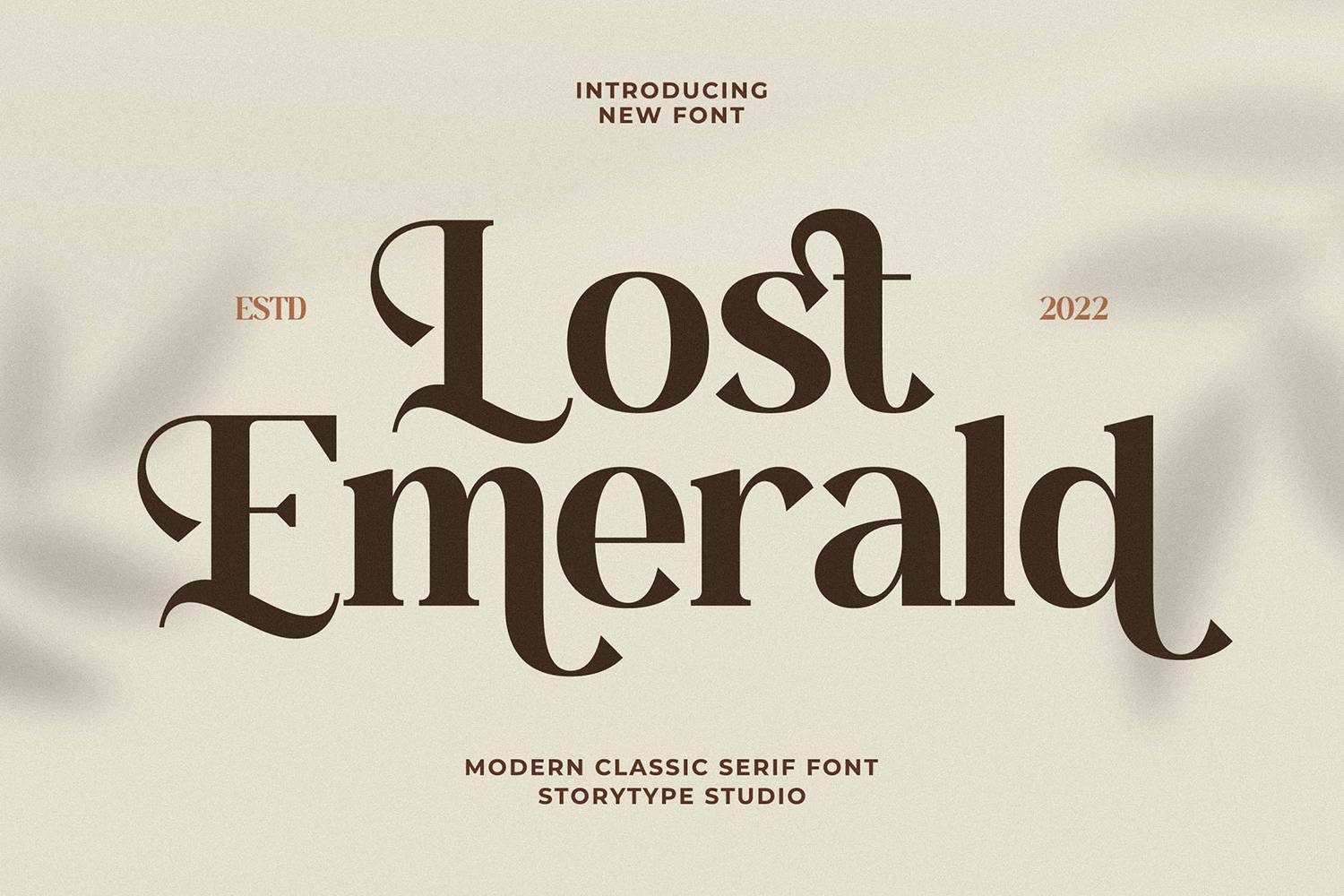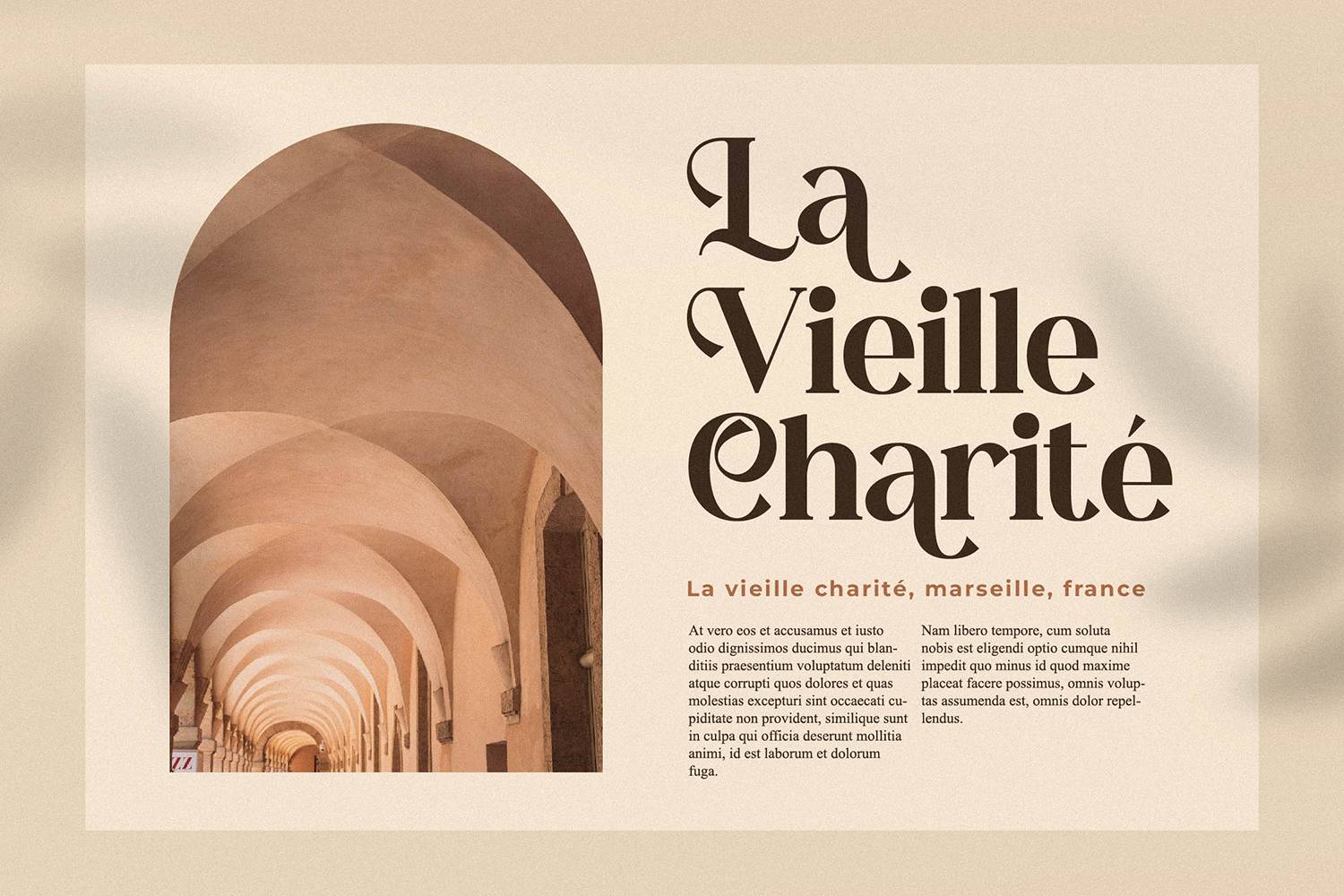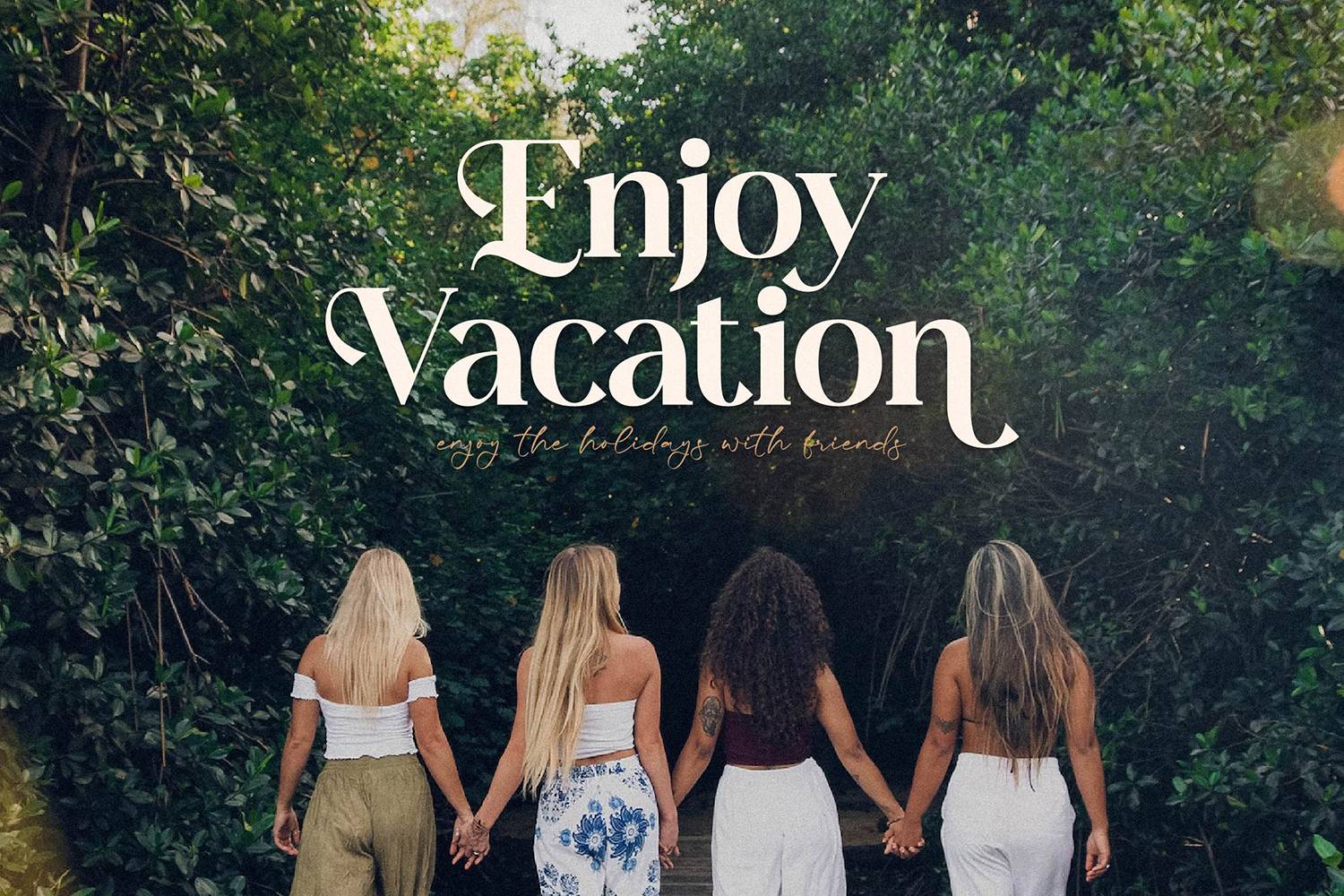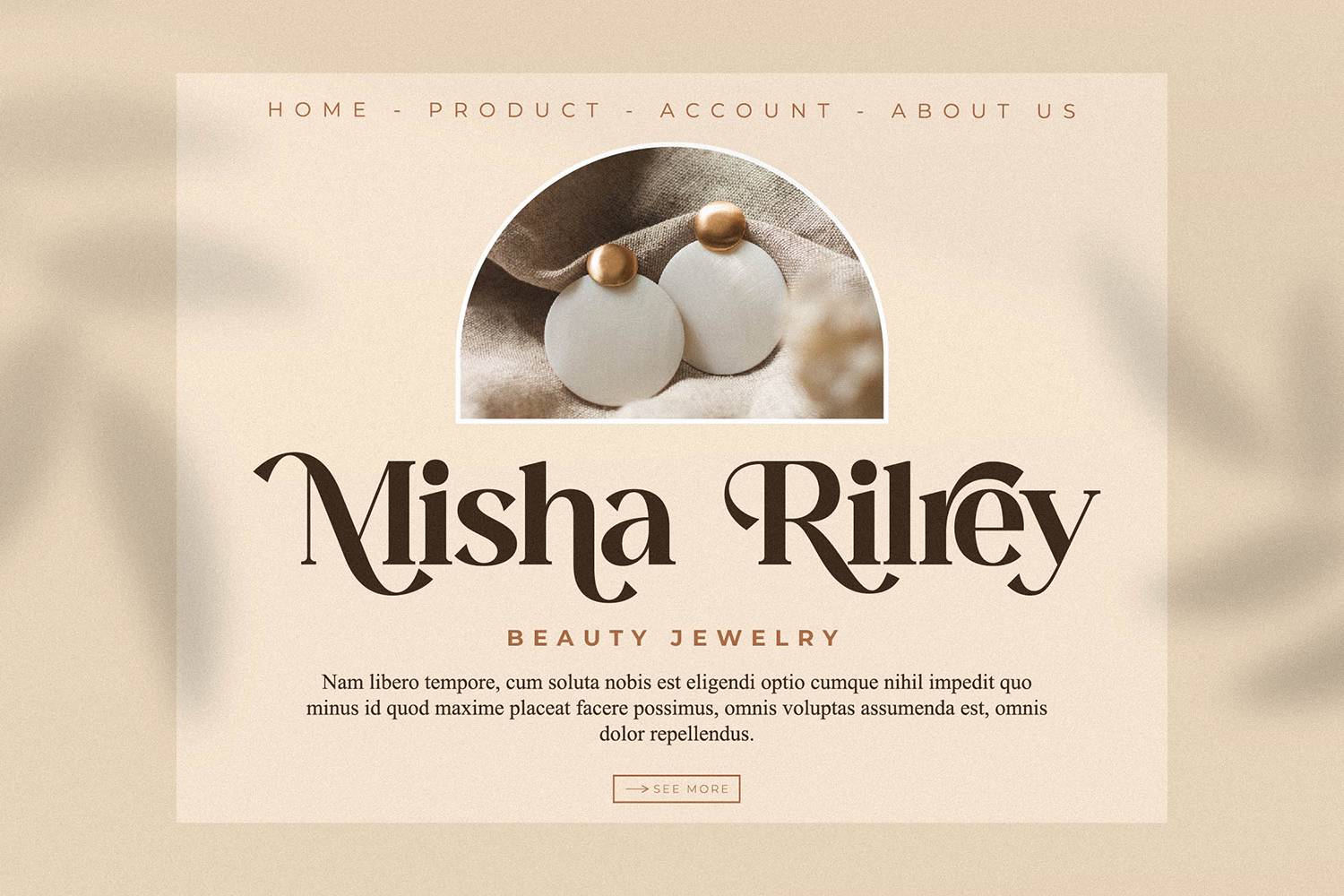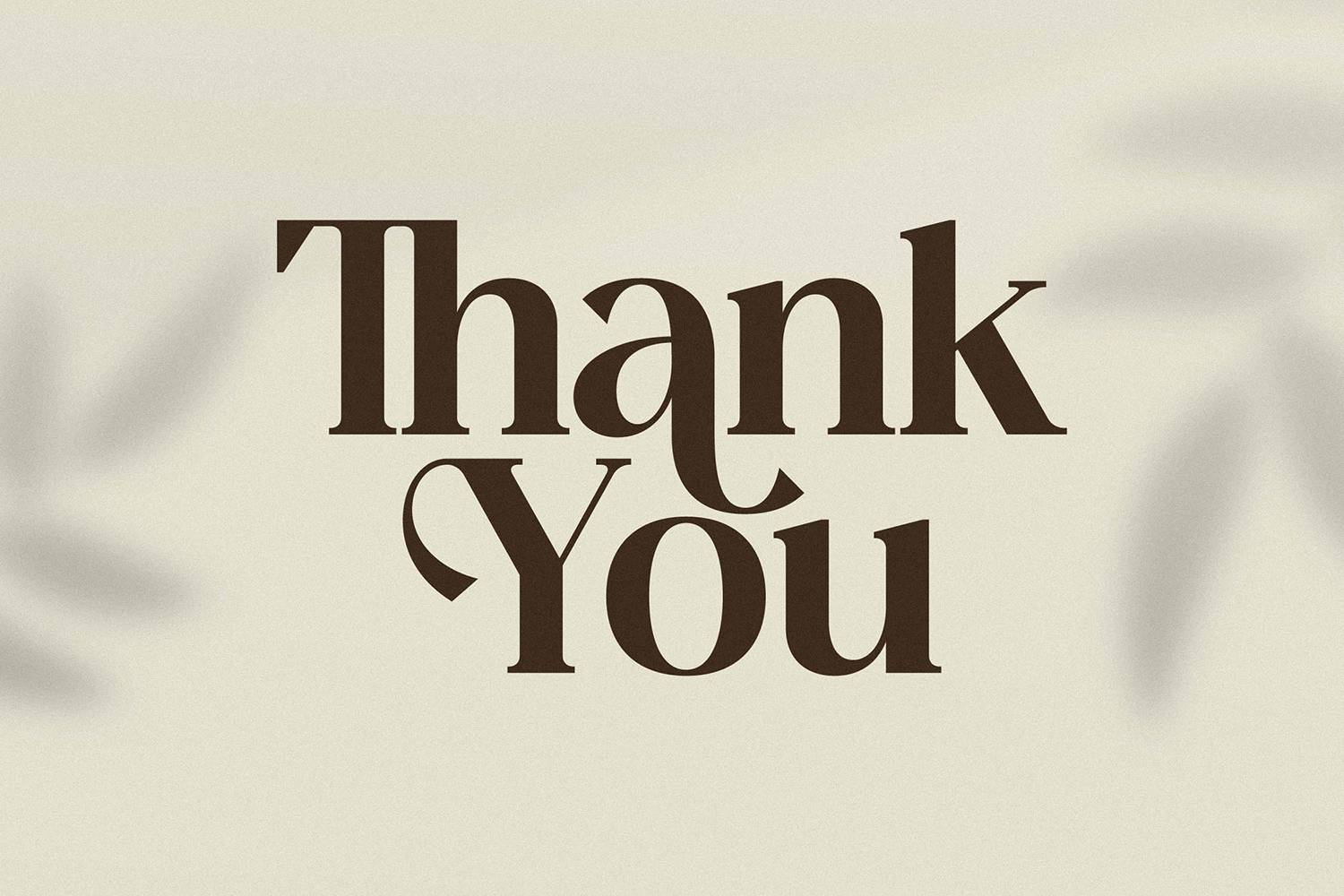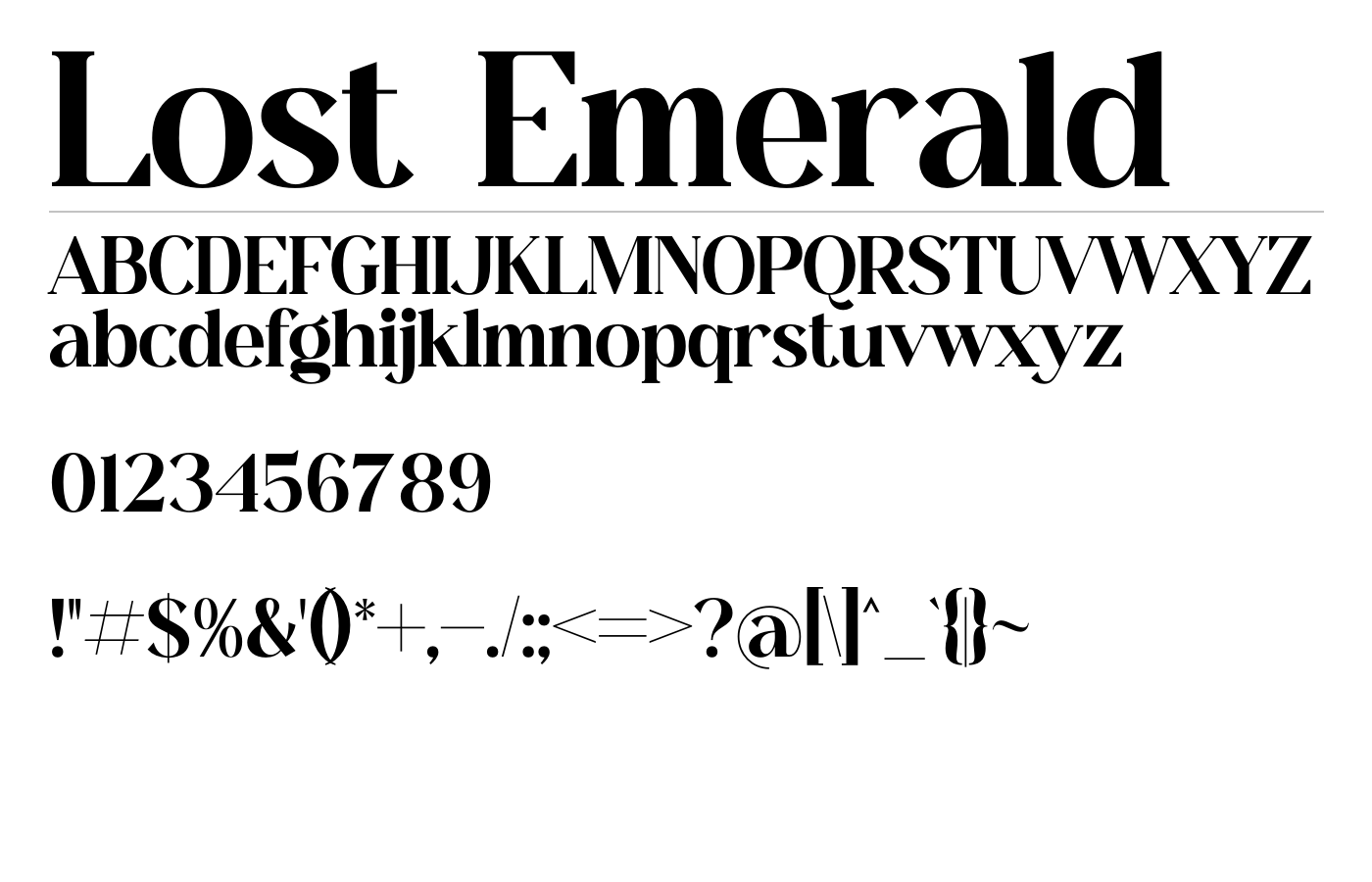
Lost Emerald is a refined serif font with a classic, elegant feel, characterized by its high contrast between thick and thin strokes and sharp, bracketed serifs. Its tall x-height and meticulous letterforms—such as double-story a and g—make it stylish yet readable, ideal for luxury branding, editorial headlines, and sophisticated packaging. This font conveys a timeless, upscale personality that suits premium and professional designs perfectly.
Lost Emerald Font
About Lost Emerald Font
| Font family | Lost Emerald Font |